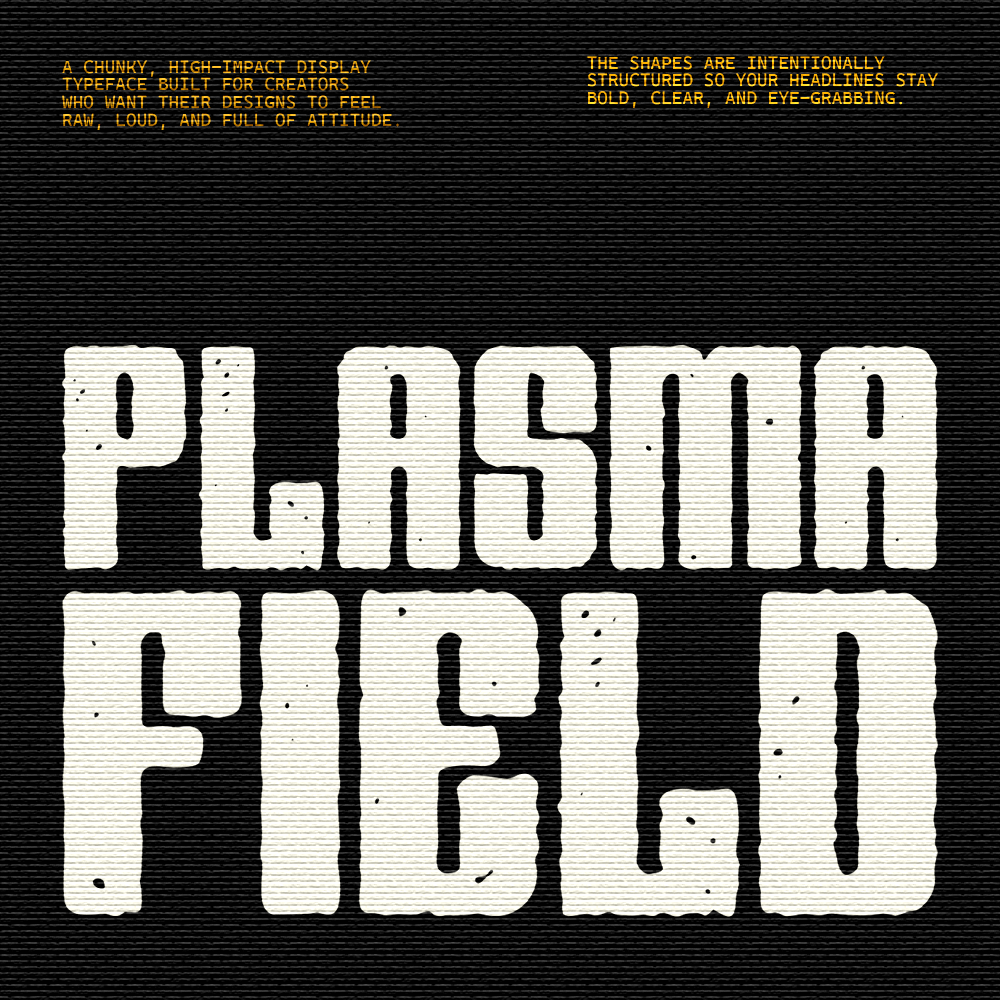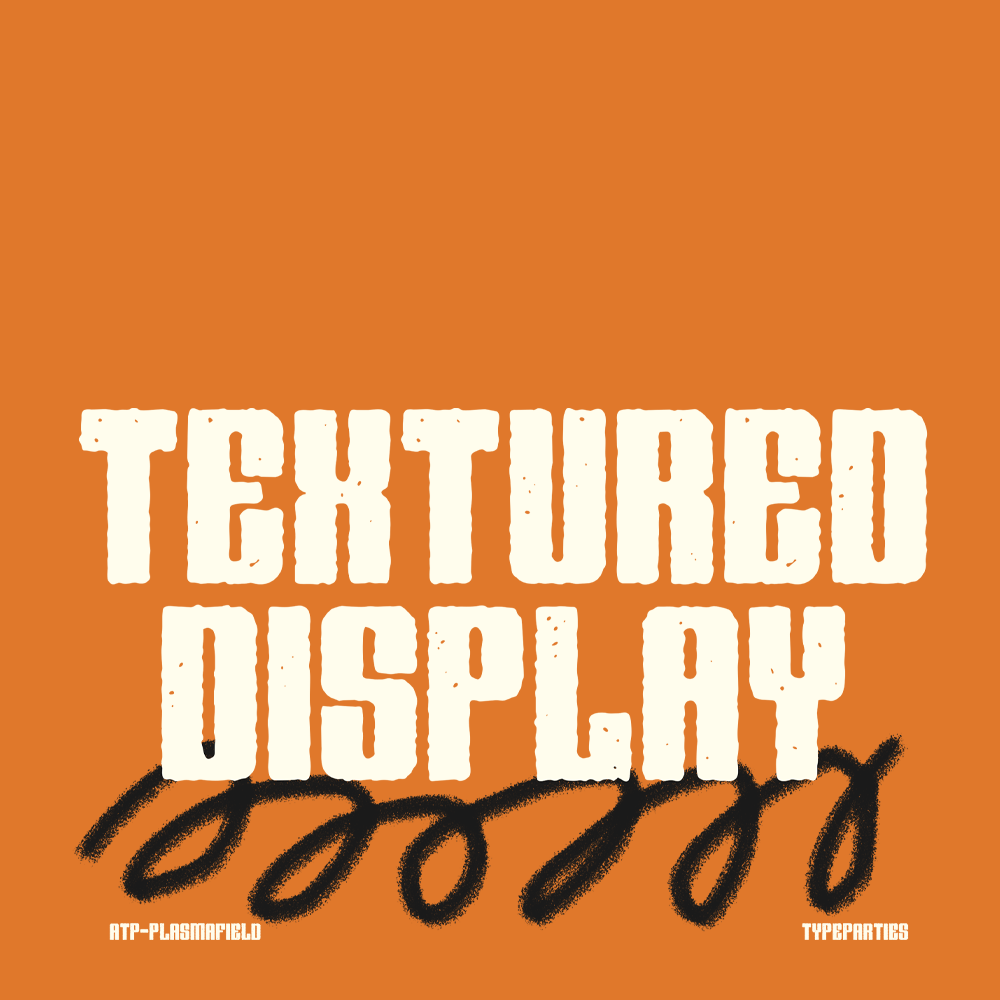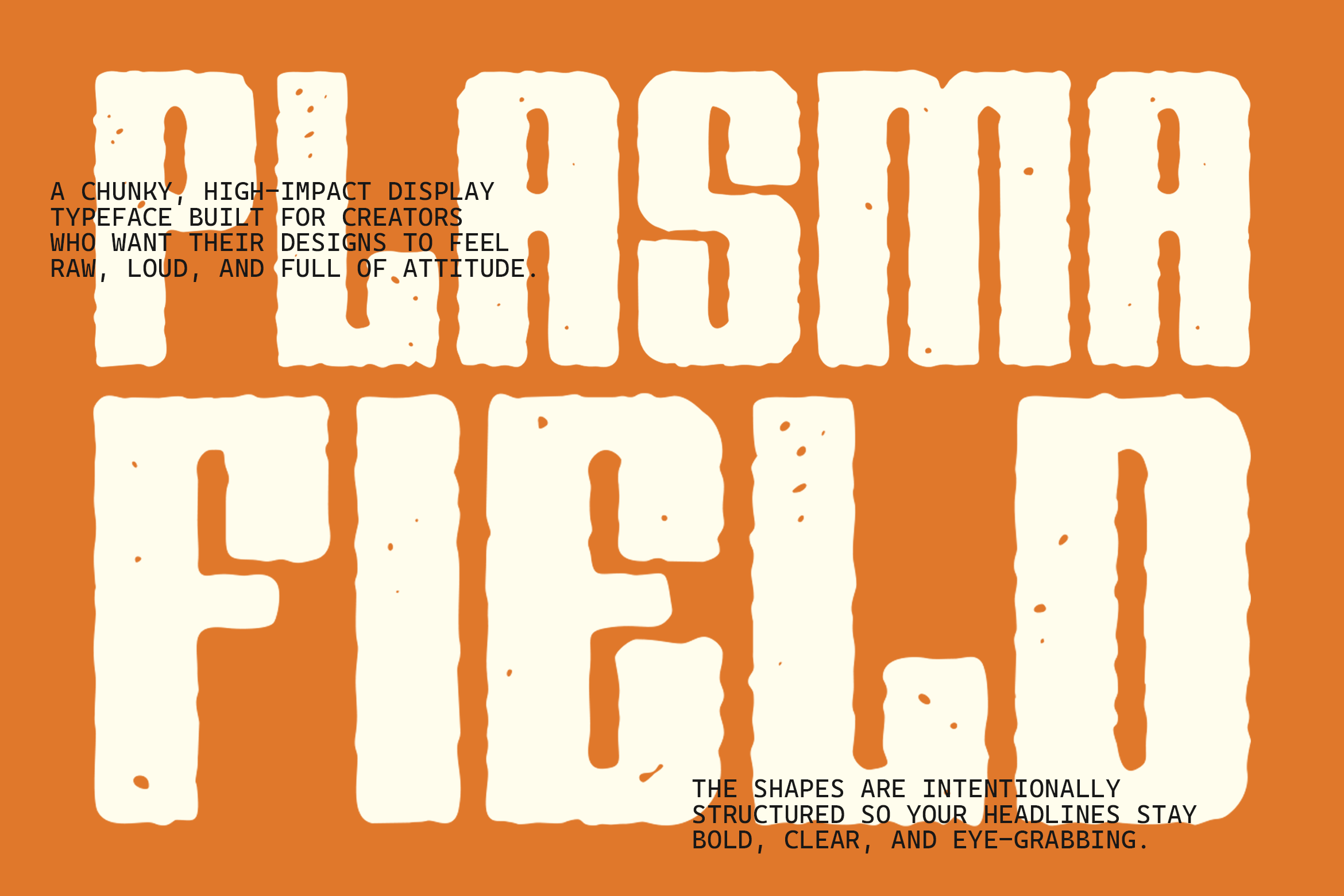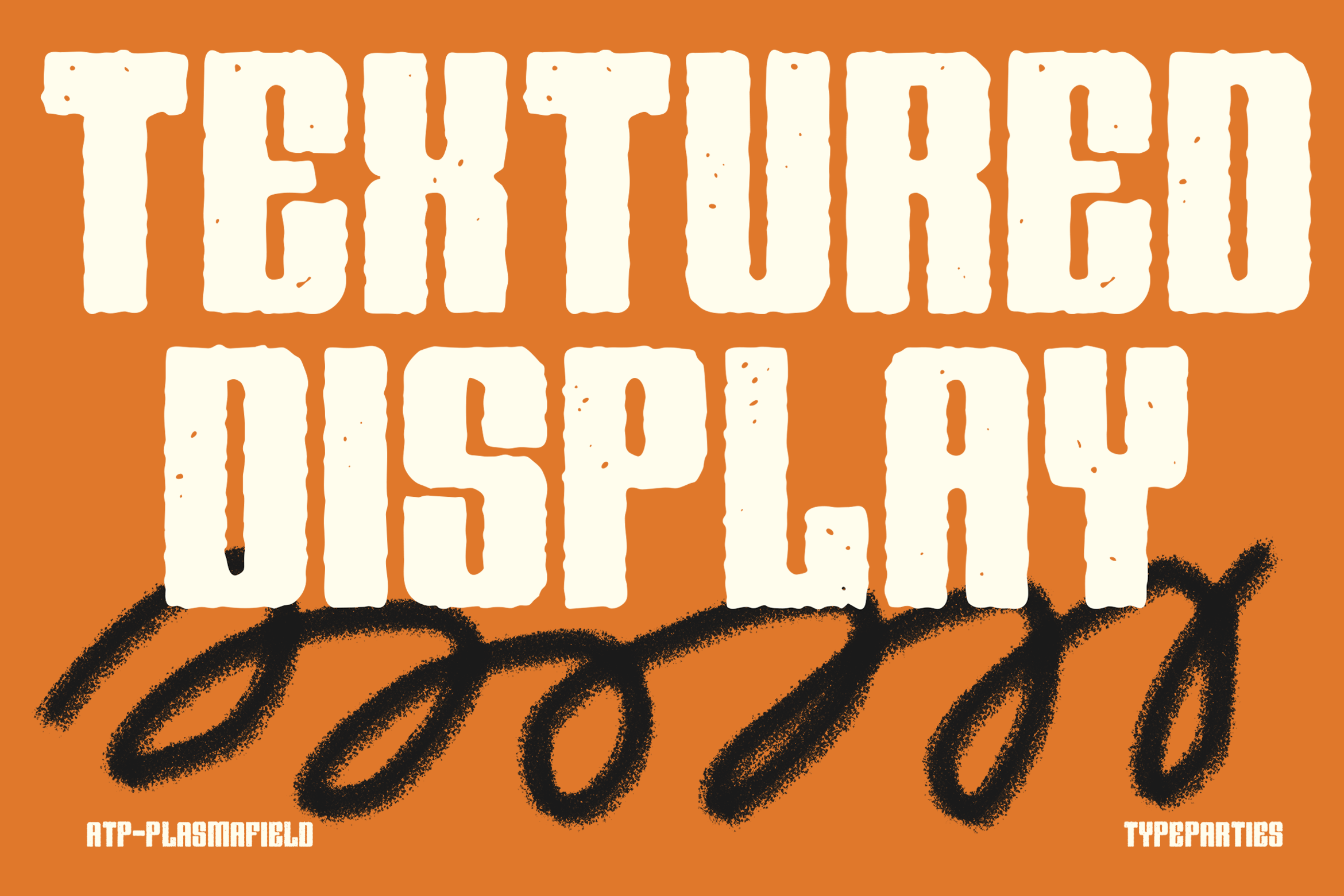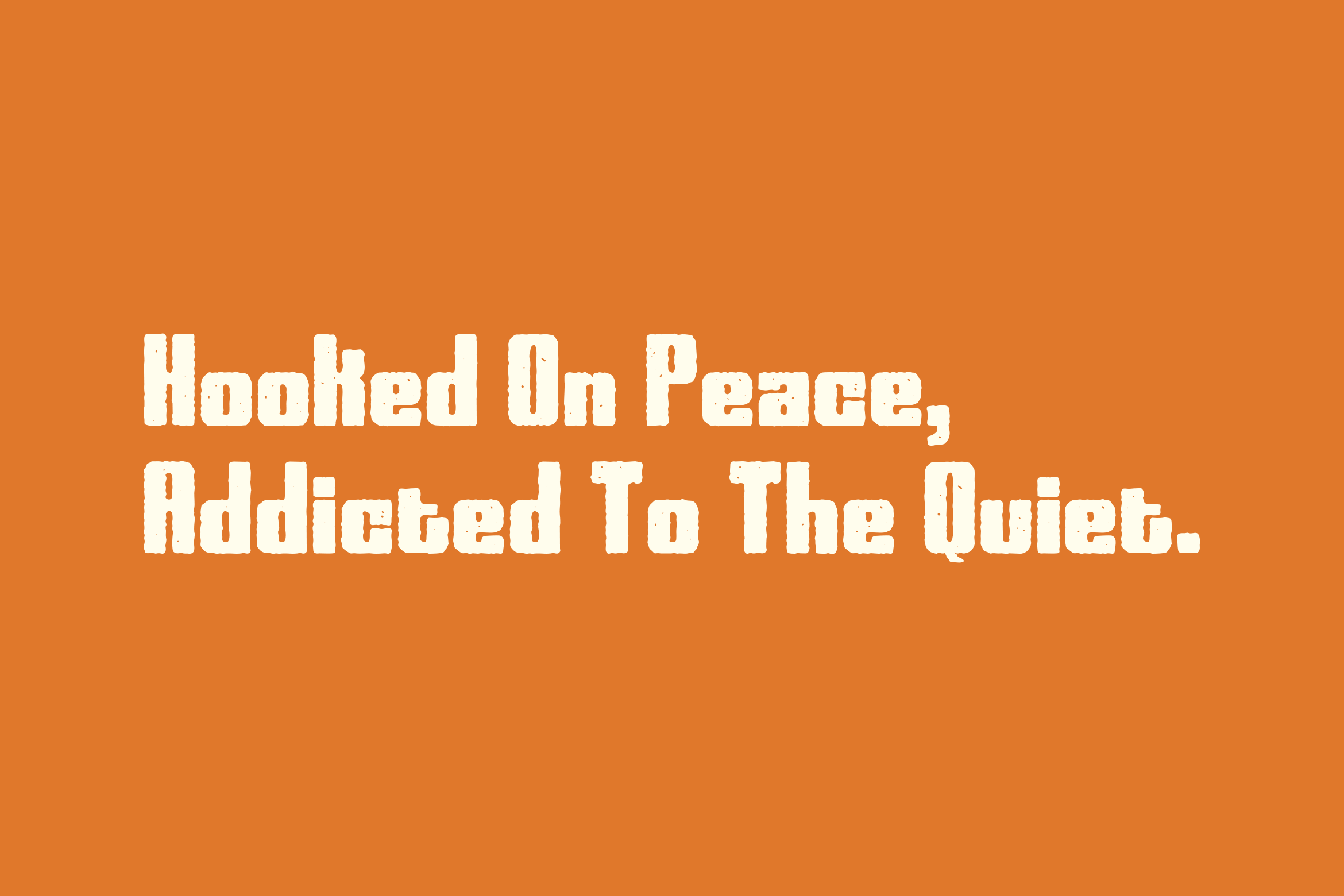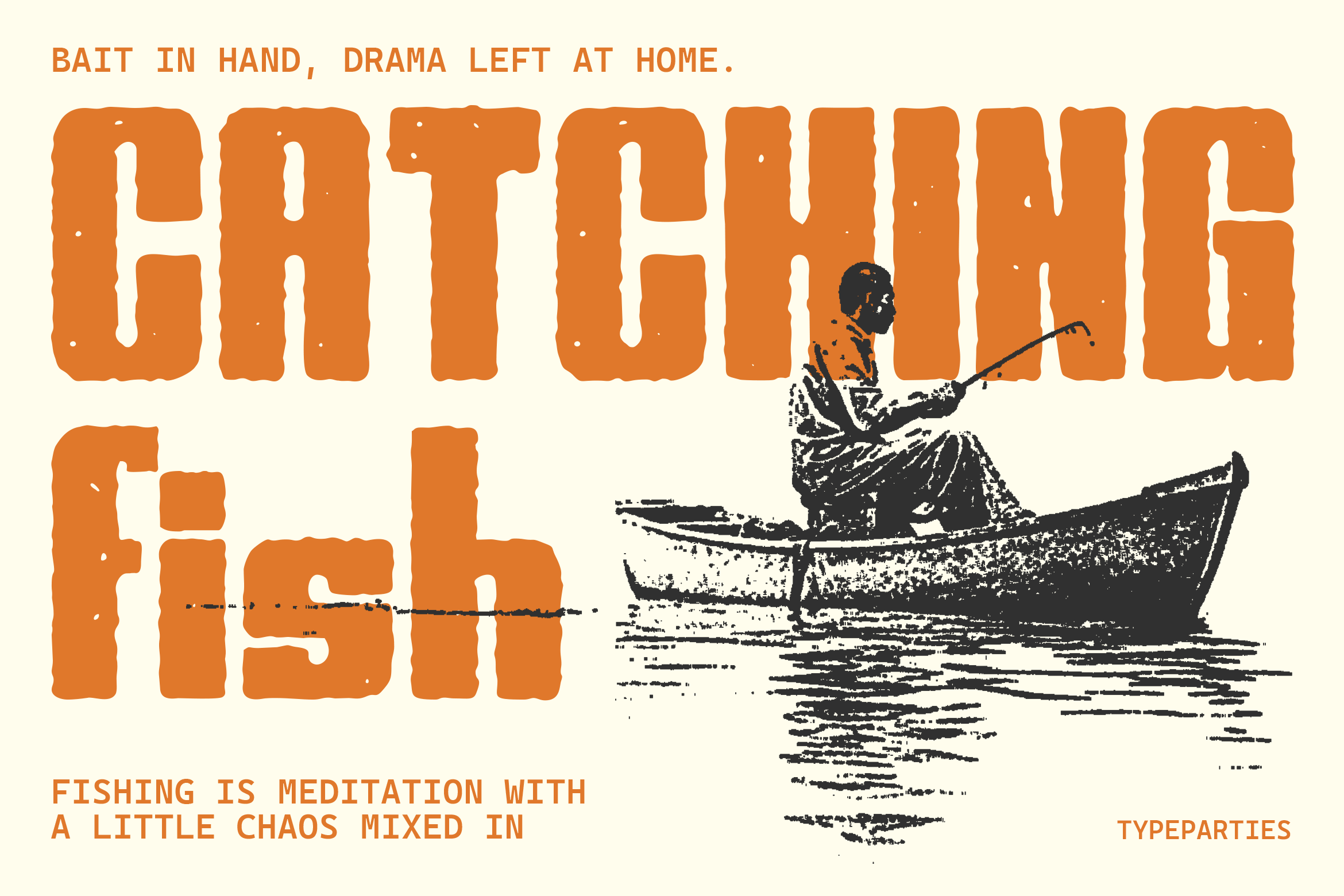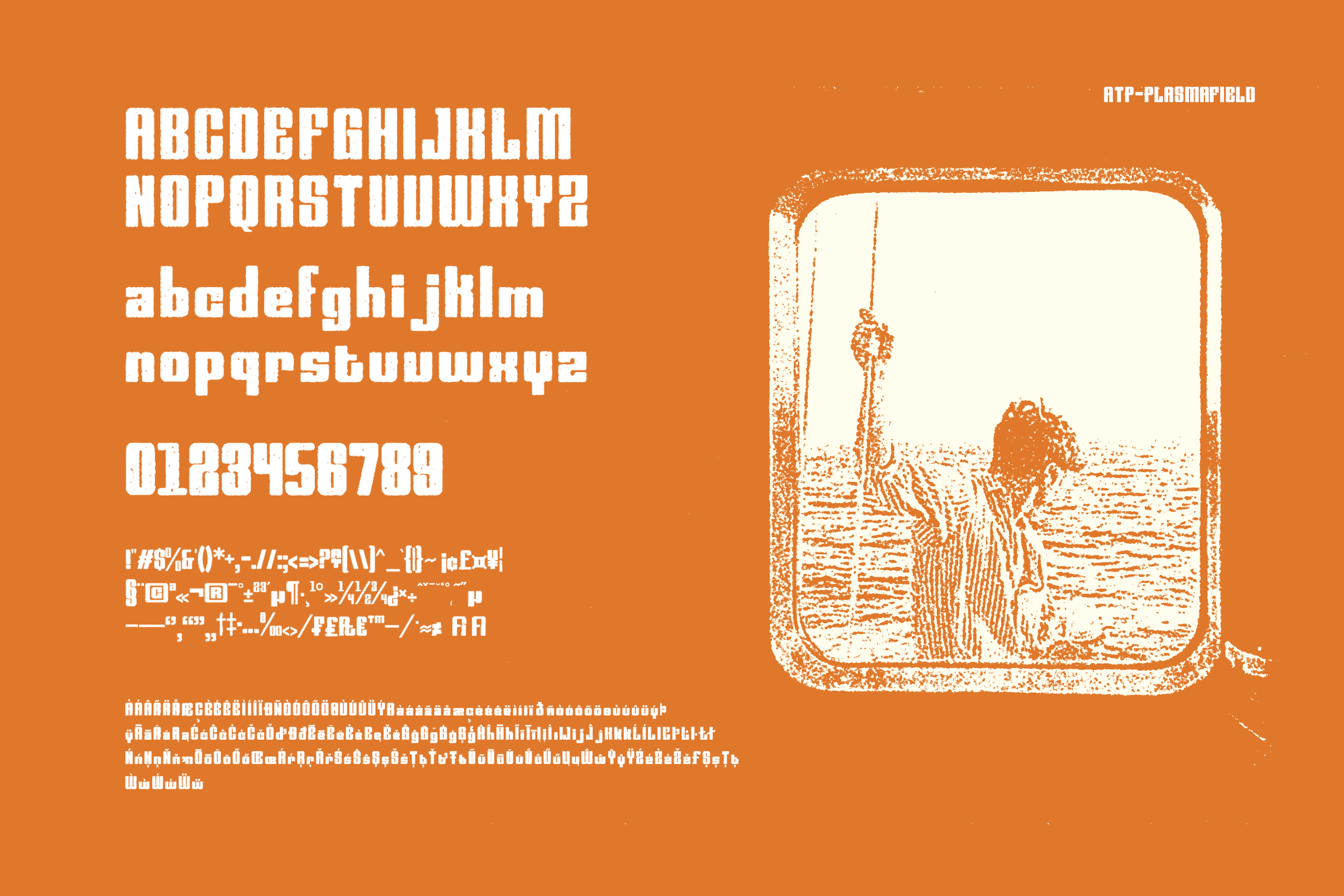
Plasma Field - Grunge Bold Display Font
Plasma Field is a chunky, high-impact display typeface built for creators who want their designs to feel raw, loud, and full of attitude. Its rough, porous texture gives each letter a hand-cut, organic vibe, like something pulled straight from old sci-fi posters, DIY gig flyers, or retro horror titles. Even though it looks chaotic at first glance, the shapes are intentionally structured so your headlines stay bold, clear, and eye-grabbing.
Uppercase
Lowercase
Numerics
Punctuation
Multilingual
Plasma Field is a chunky, high-impact display typeface featuring a rough, porous texture that gives each letter an organic appearance. It includes uppercase and lowercase letters, numerics, punctuation, and multilingual support, available in both .otf and .ttf formats.